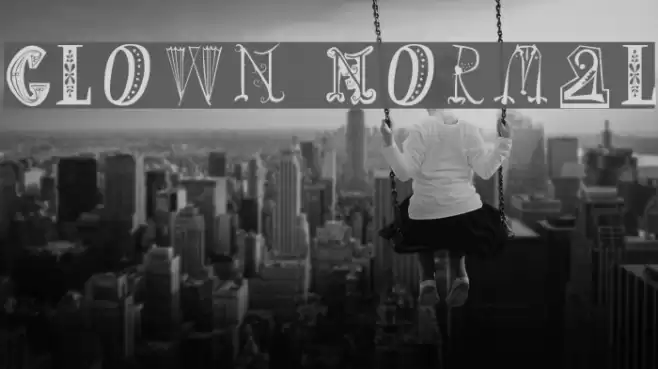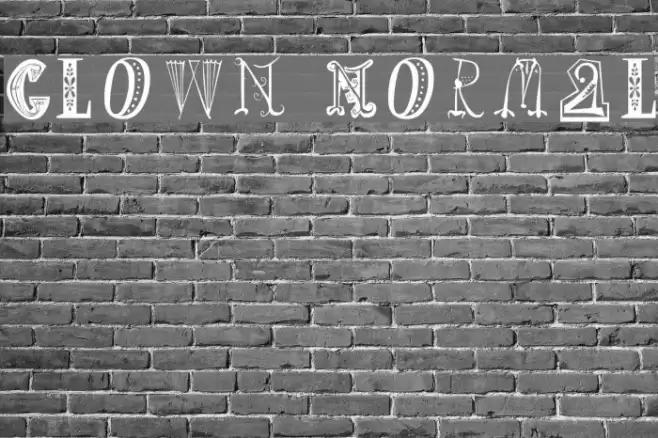
Clown Normal Font
Clown Normal Description
This font is a whimsical and eclectic collection of characters, each with its own unique decorative flair. The uppercase letters feature a variety of playful elements, such as stars, stripes, dots, and swirls, creating a lively and dynamic appearance. The lowercase letters continue this theme with quirky embellishments and unexpected shapes. Numbers are equally imaginative, incorporating geometric patterns and bold designs. Special characters are adorned with creative details, enhancing the overall playful and artistic feel. This font is perfect for projects that require a fun and eye-catching style.
A whimsical and decorative font with playful, unique characters from Uncategorized fonts.